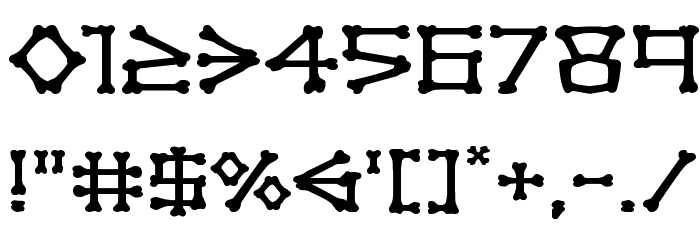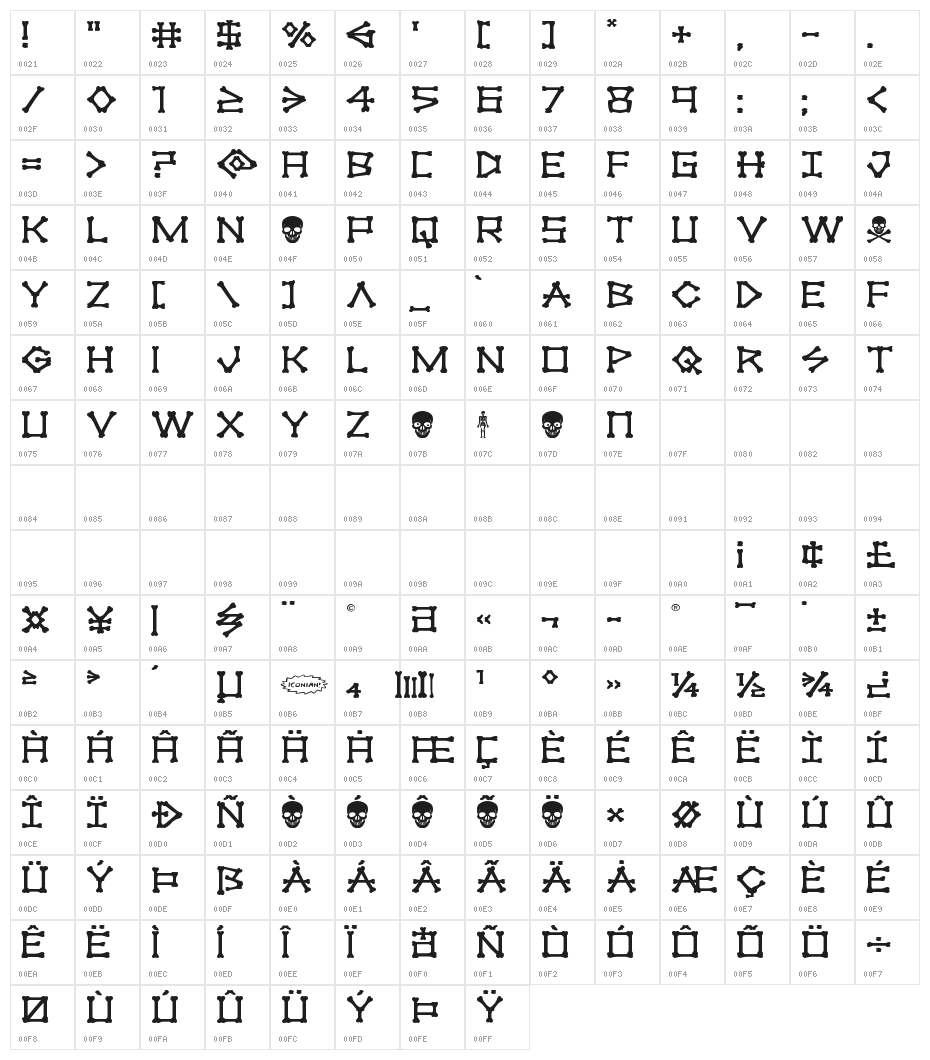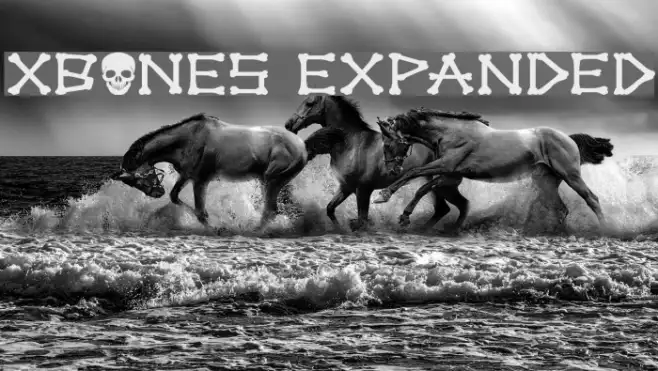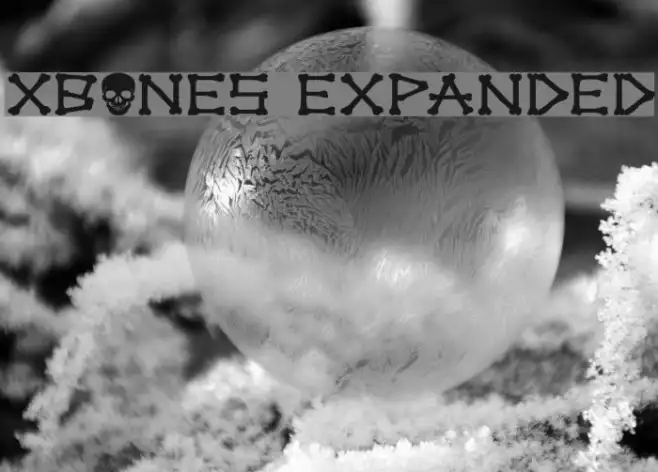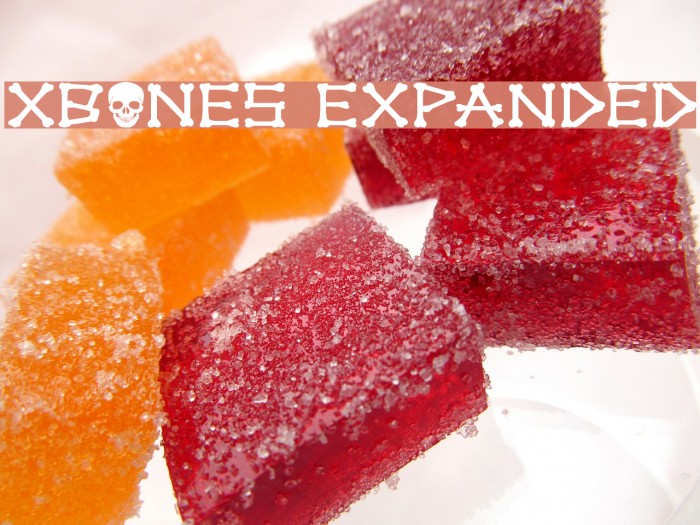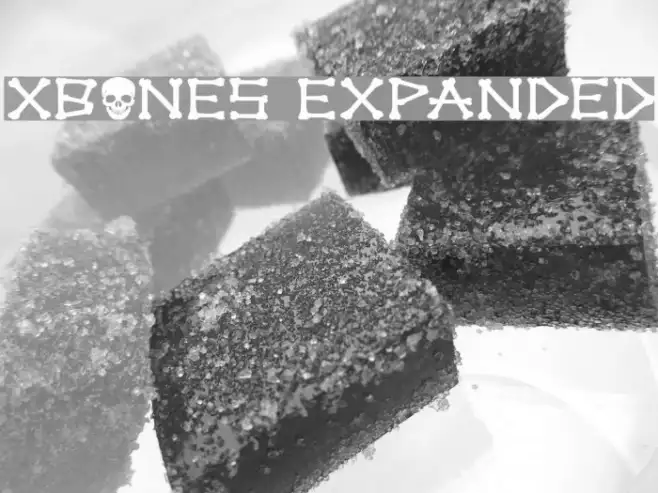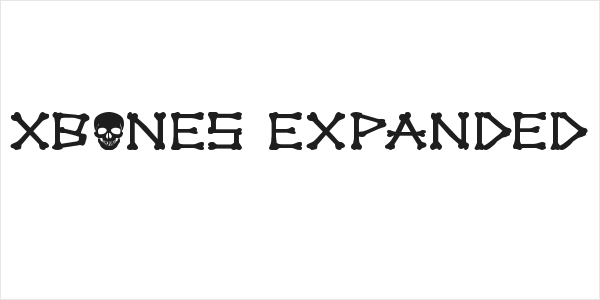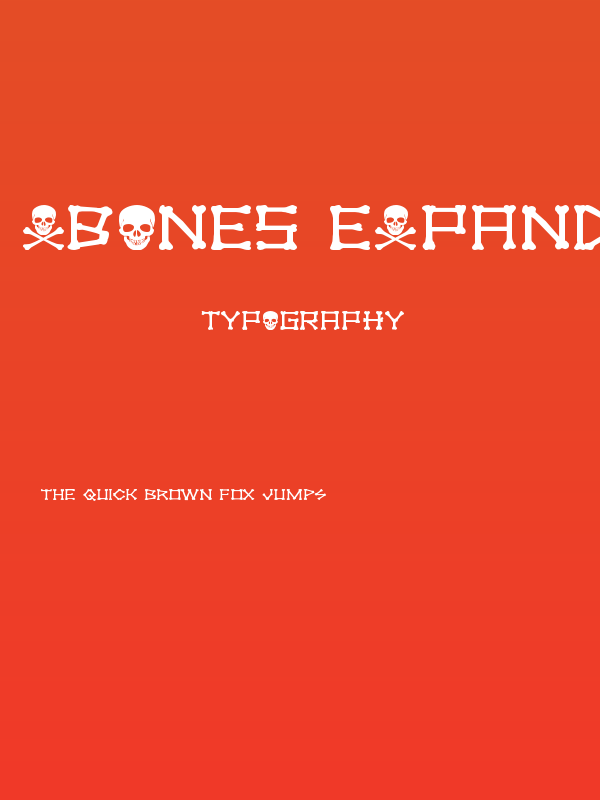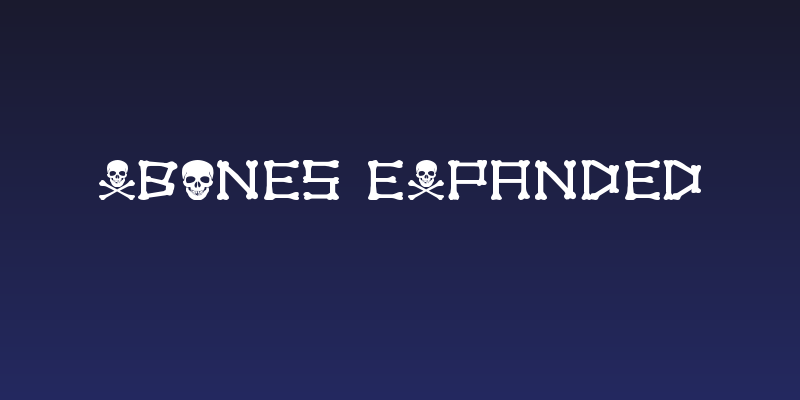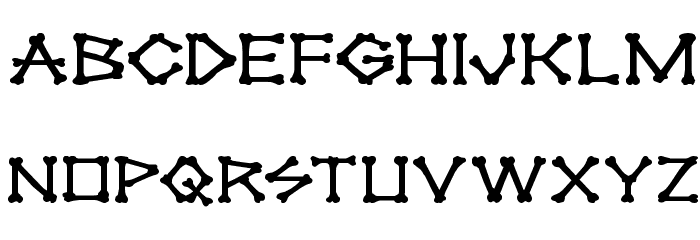
xBONES Expanded Font
xBONES Expanded Description
This font features a unique and playful design that mimics the appearance of bones. Each character is crafted to resemble skeletal structures, giving it a distinctive and slightly macabre aesthetic. The uppercase and lowercase letters maintain a consistent style, with rounded edges and a bold presence. The numbers and special characters follow the same theme, ensuring a cohesive look across all glyphs. This font is particularly eye-catching and is sure to stand out in any design project that requires a touch of whimsy or a Halloween-inspired theme.
| Proposed Projects | Ideal for Halloween-themed designs, party invitations, posters, and any project requiring a quirky, spooky touch. |